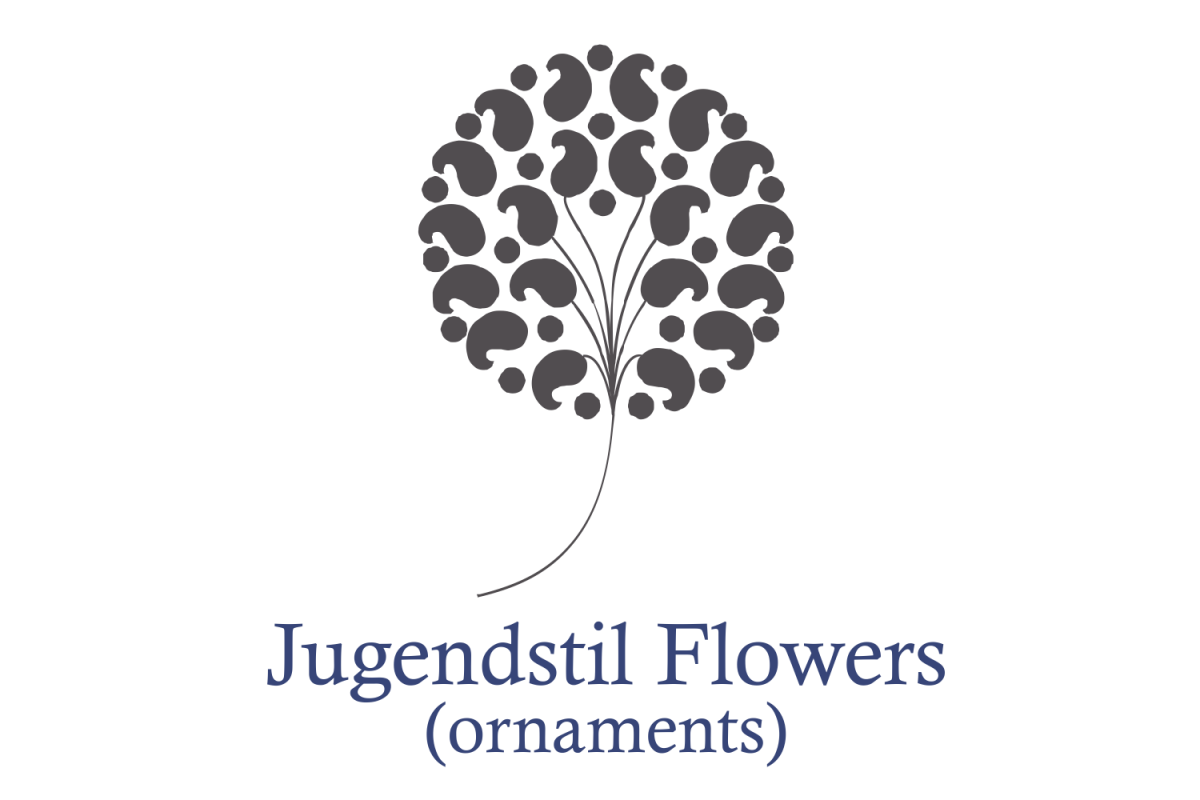
Jugendstil Flowers (family pack)
Jugendstil Flowers are a collection of dingbats fonts with ornaments, leitmotivs and fleurons, free inspired in the visual style from the golden age of the Art-Nouveau graphic movement.A beautiful work with and organic forms and sensibility with the taste of the vegetal world. Family pack with four fonts